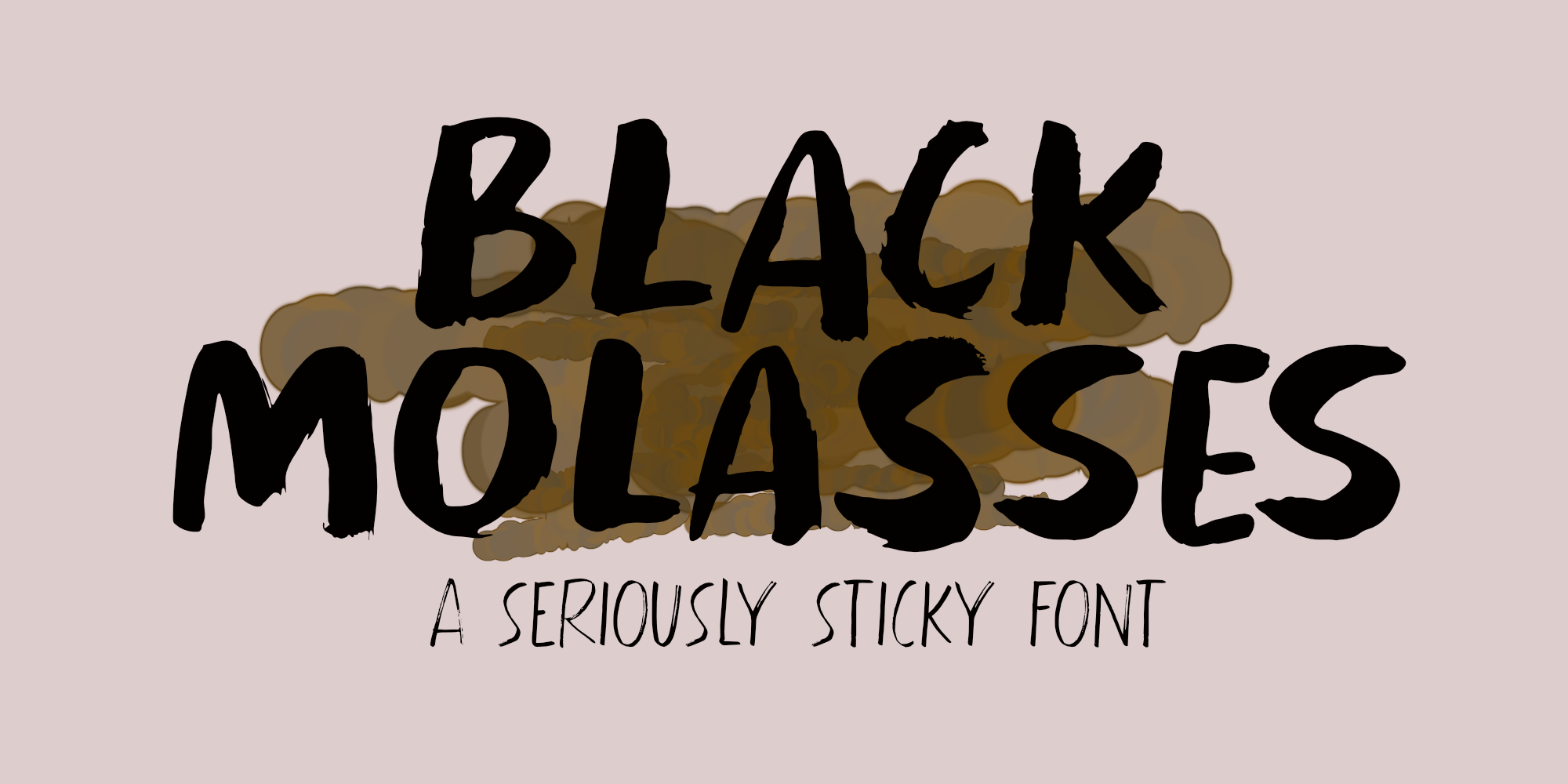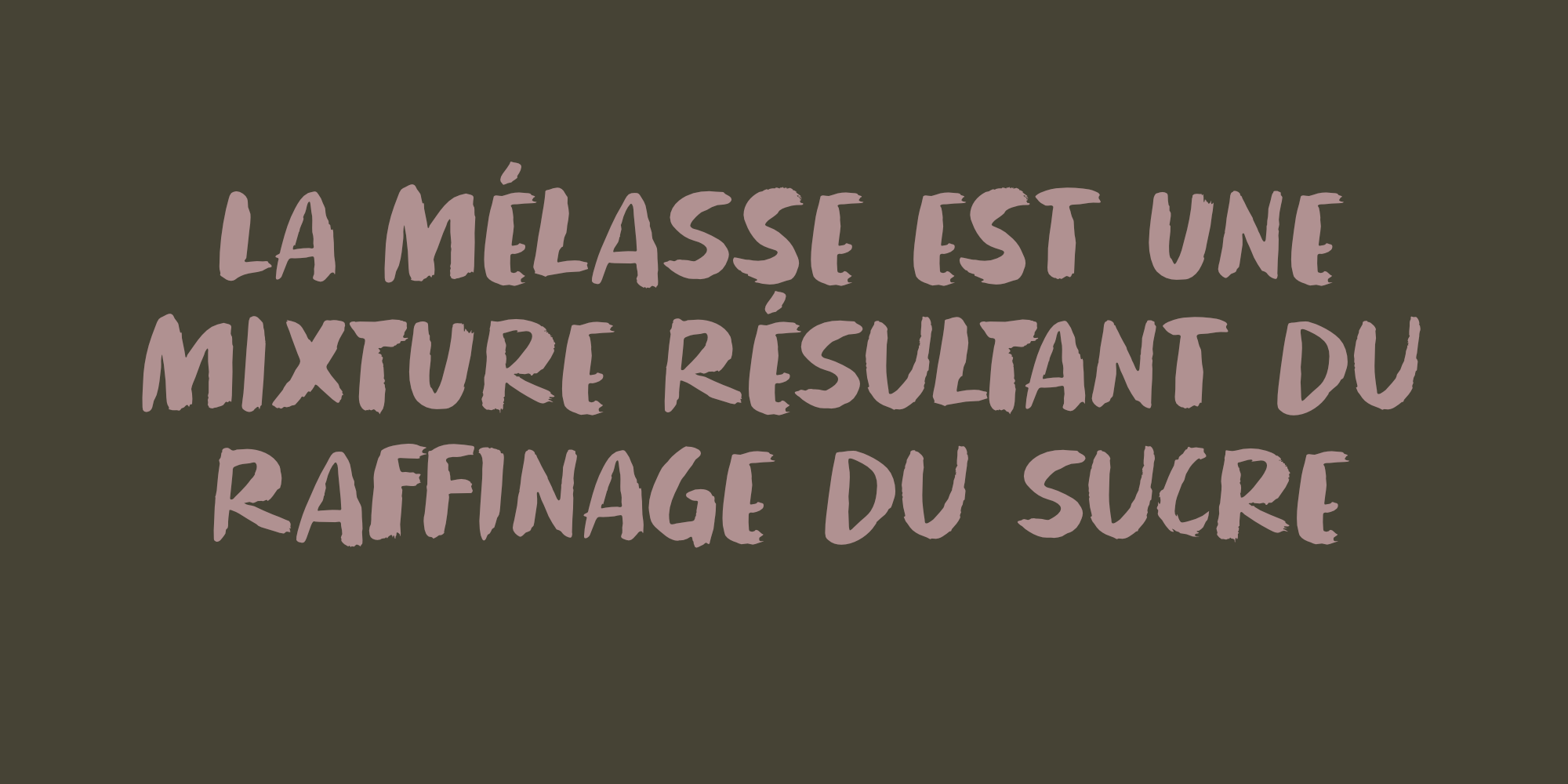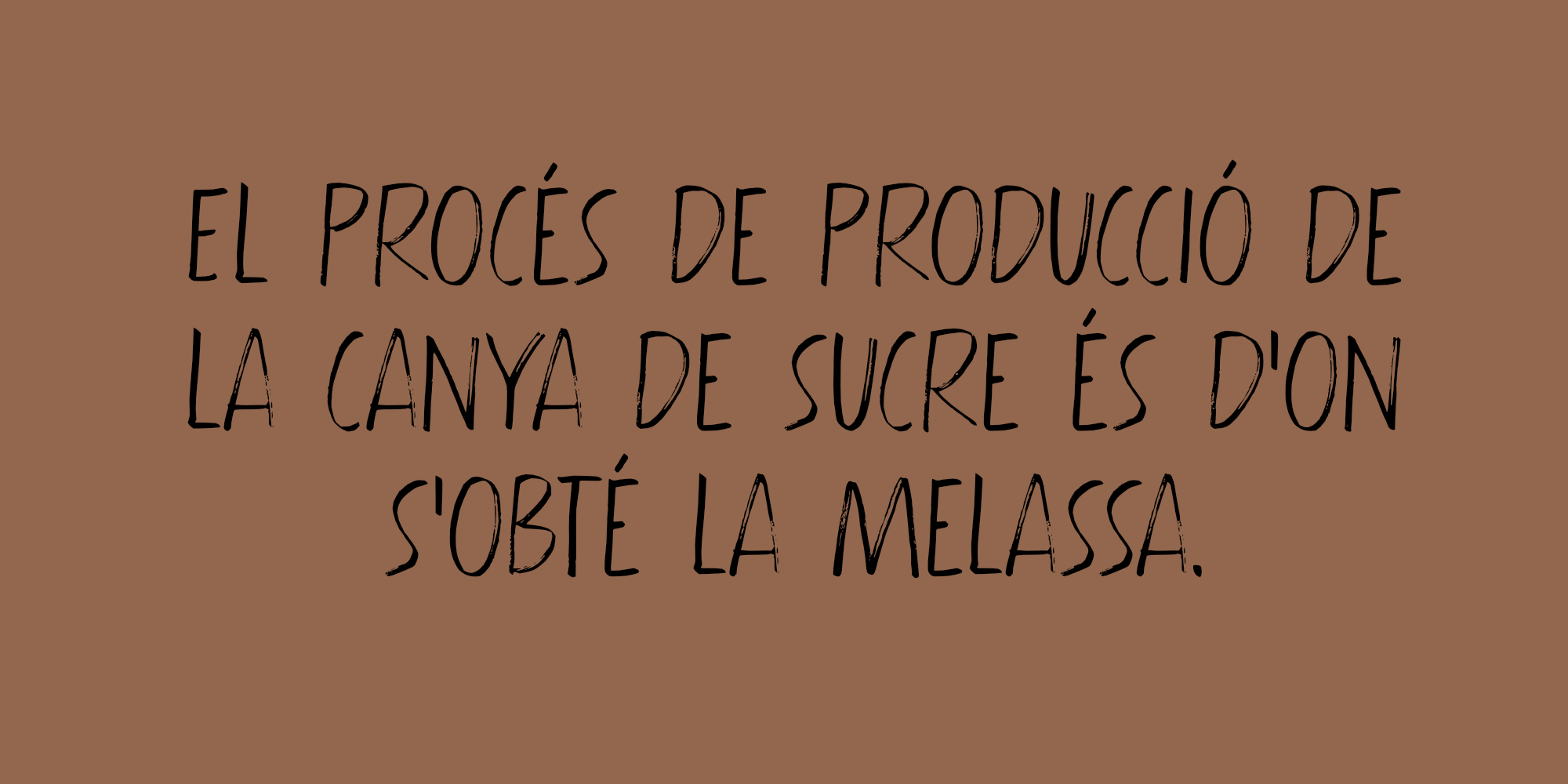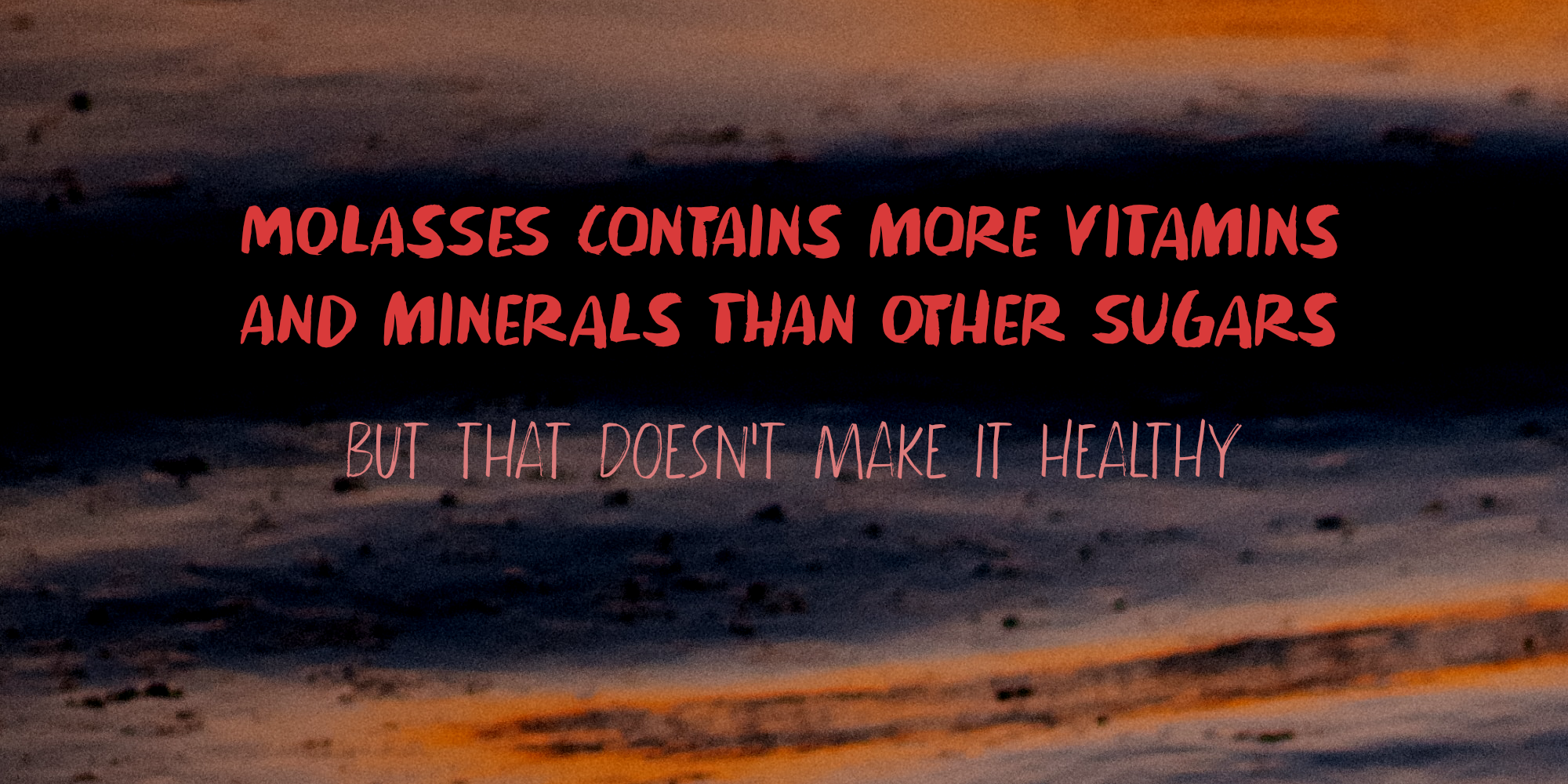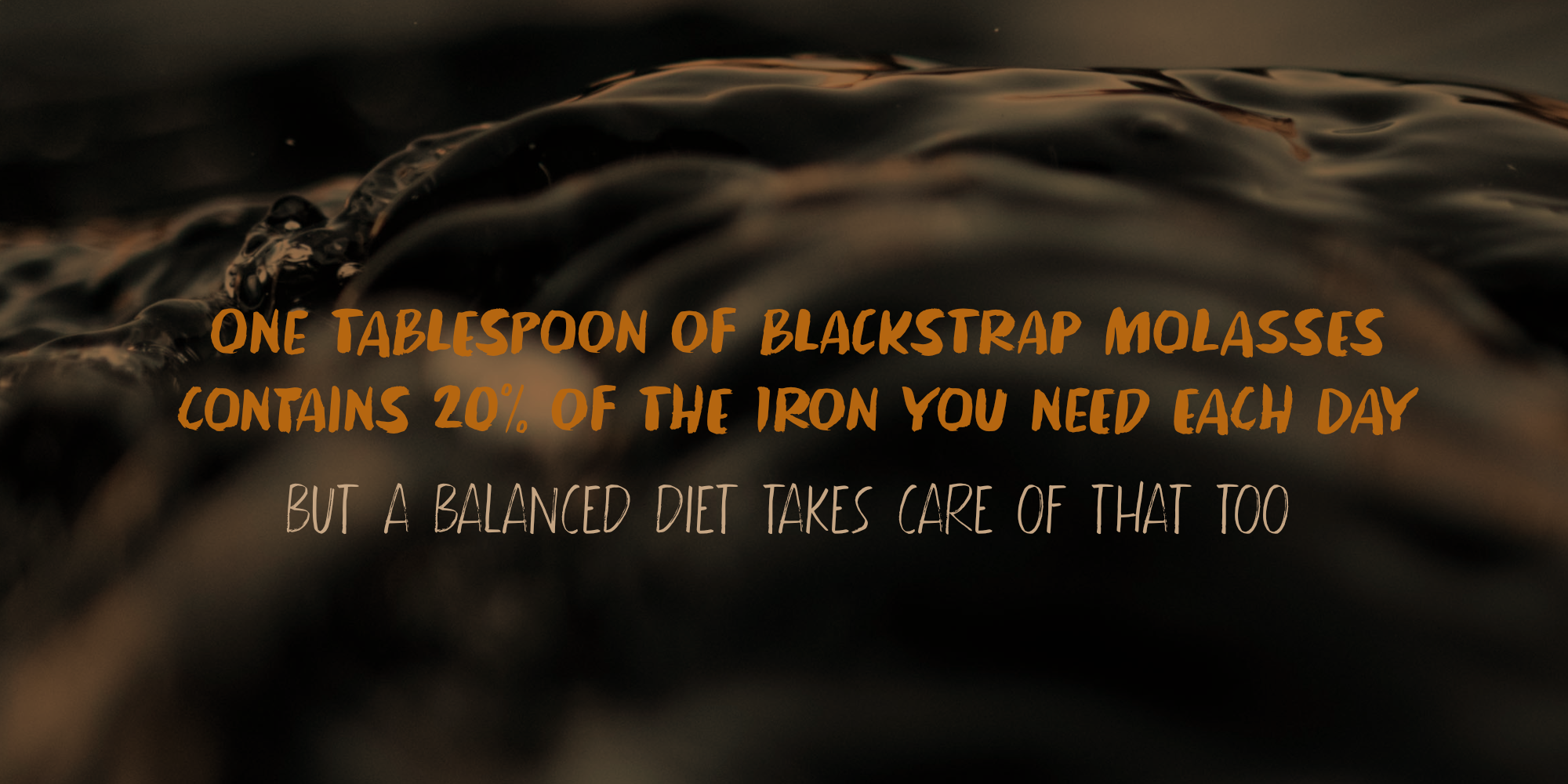
Black Molasses (4 fonts)
Black Molasses was made using various cheap brushes and Chinese Ink. It comes in a ‘fat’ version and a ‘light’ version that work together really well.